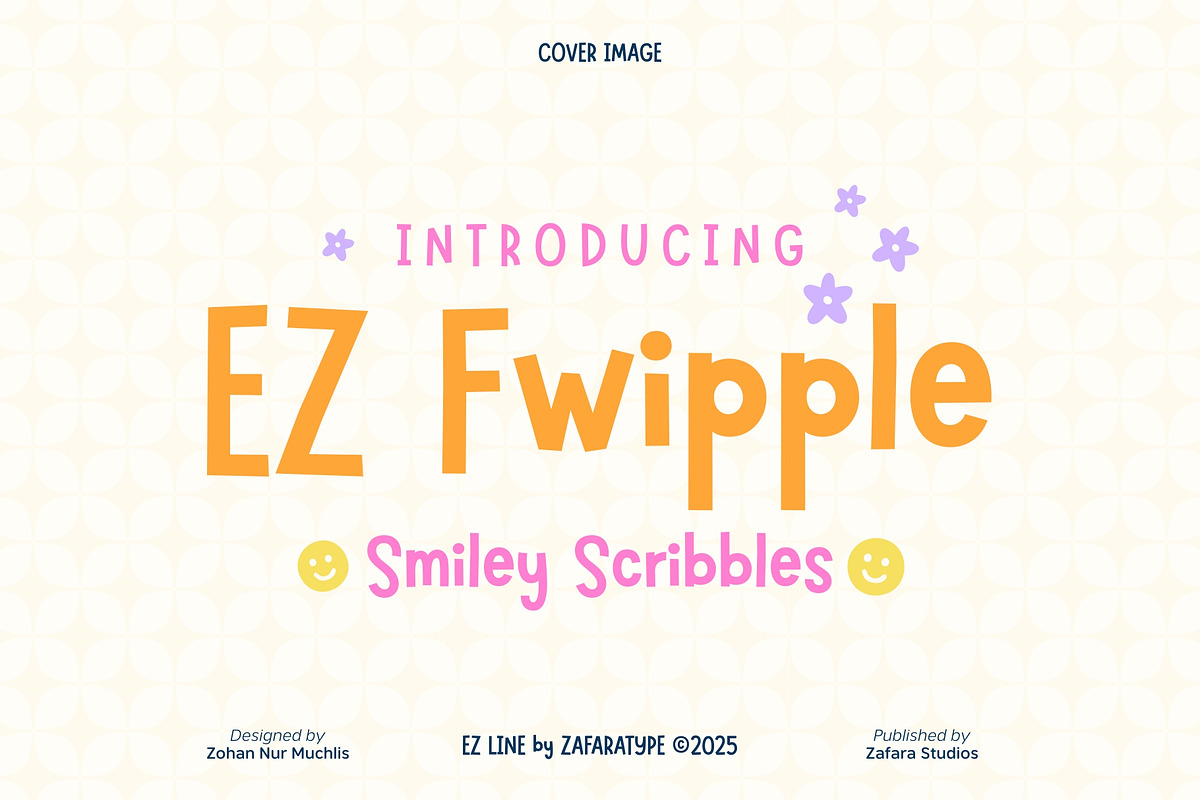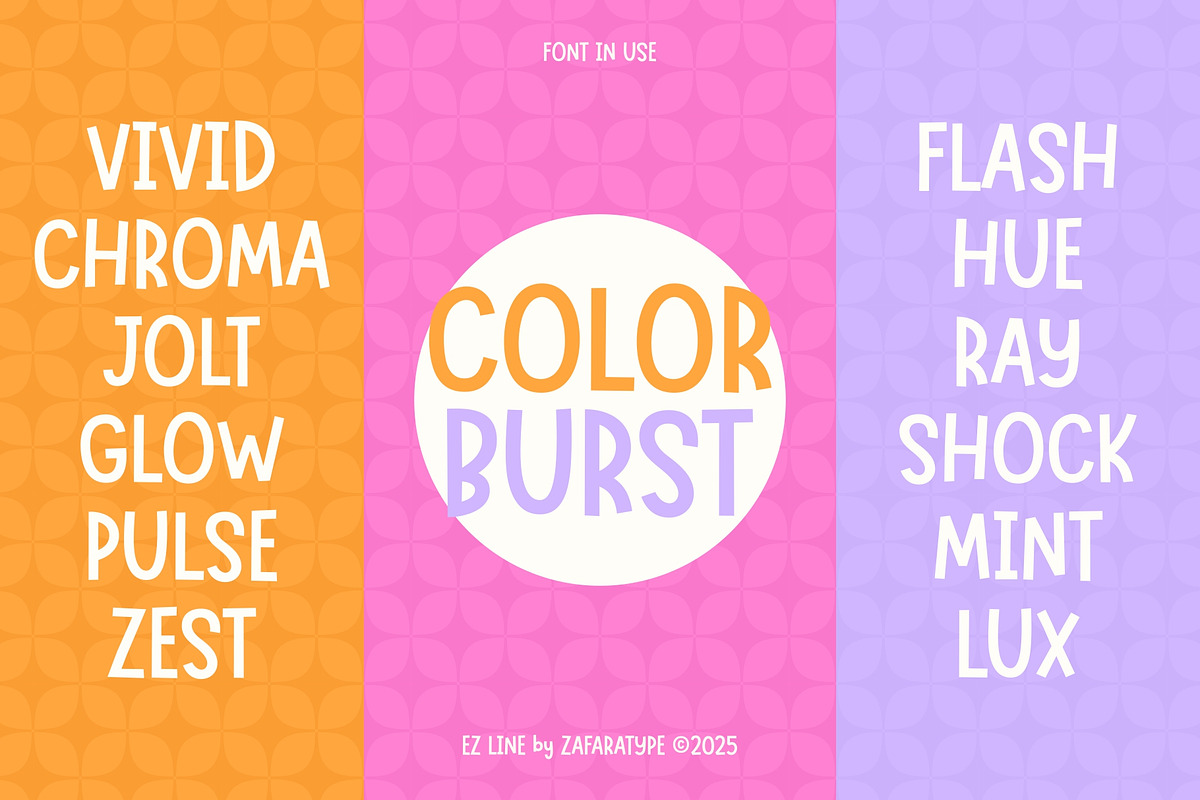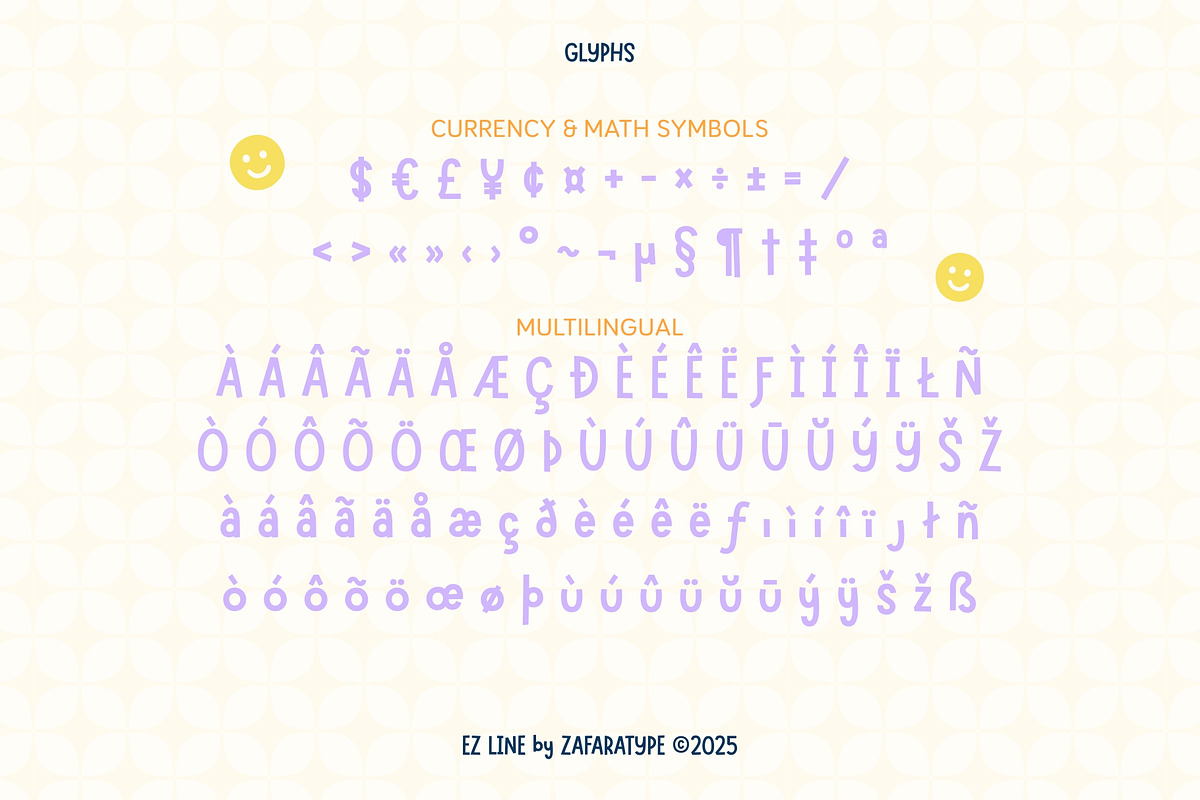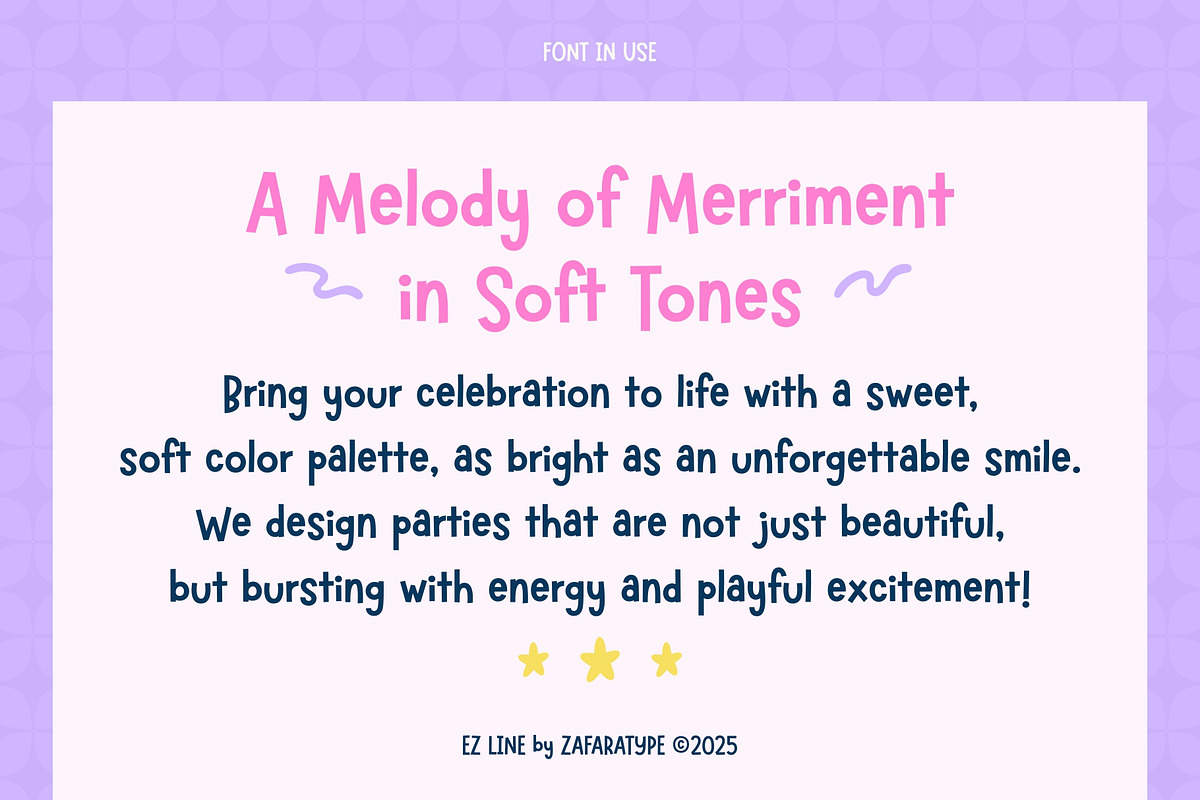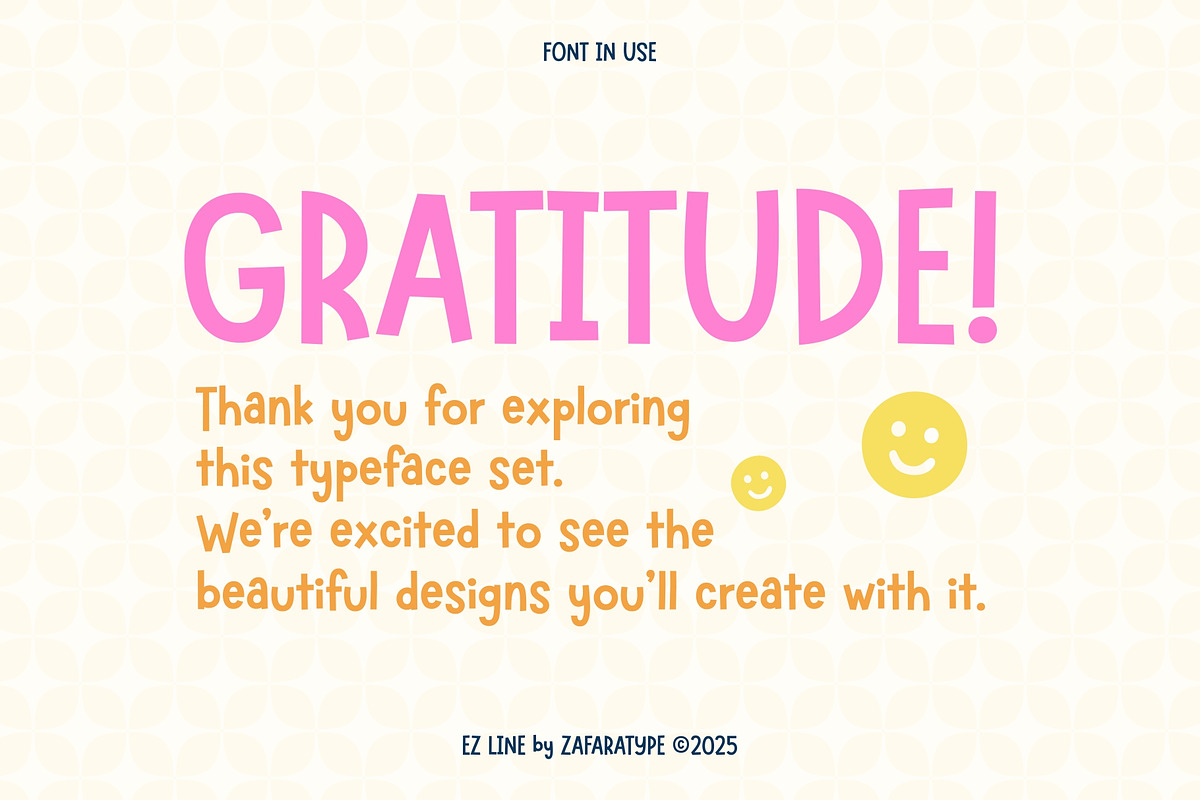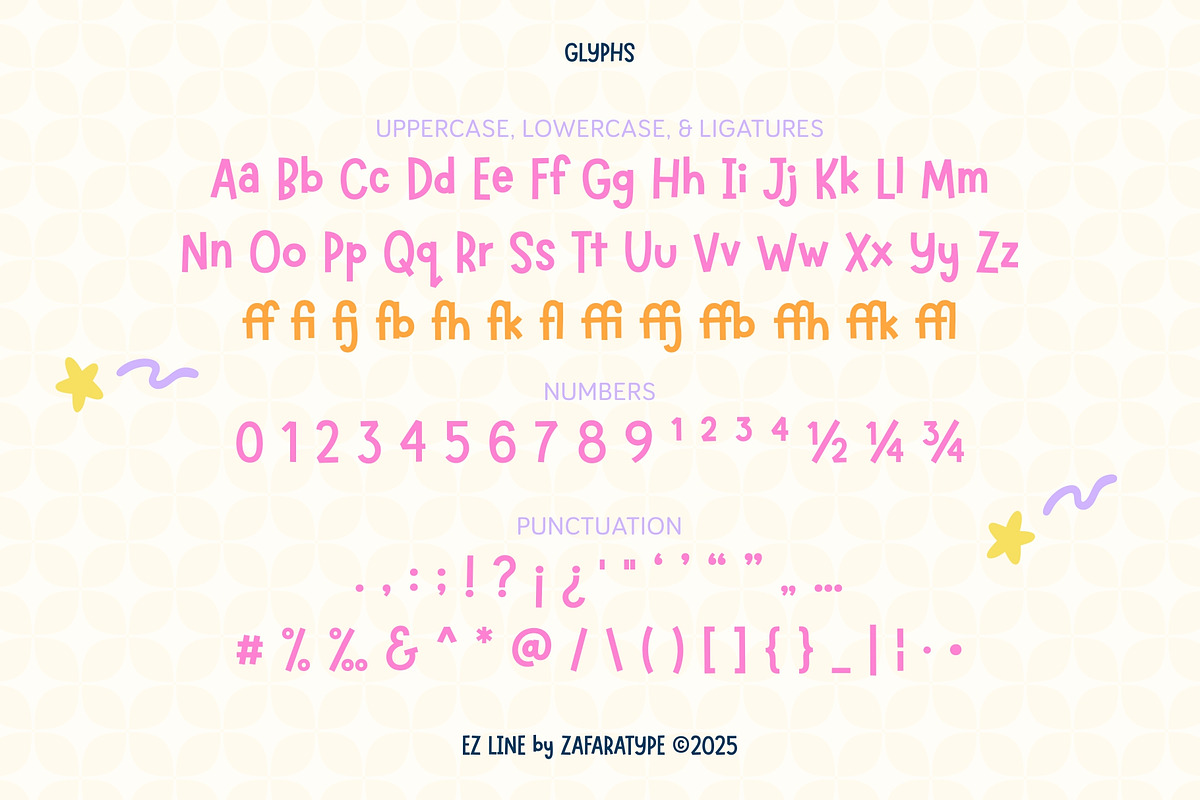
EZ Fwipple
EZ Fwipple is a cheerful and quirky display font filled with friendly shapes and playful personality. Each letter is drawn with bold, bouncy strokes that feel spontaneous but still tidy, giving your designs an expressive and joyful look.
Its doodle-like forms bring the charm of casual scribbles to life. The style feels energetic, happy, and imaginative, perfect for designs that need a bright and uplifting mood. Use it for children’s books, packaging, posters, logos, quotes, stickers, social media graphics, and any project that calls for a fun and delighted visual tone.
Wherever you want to add positivity, character, and a spark of childlike joy, EZ Fwipple fits beautifully.
- 256 glyphs: Uppercase and lowercase, Numbers and punctuation, Symbols and accents, Multilingual support
- 25 languages: Afrikaans, Albanian, Basque, Catalan, Danish, Dutch, English, Estonian, Faroese, Filipino, Finnish, French, Galician, German, Icelandic, Indonesian, Irish, Italian, Malay, Norwegian Bokmål, Portuguese, Spanish, Swahili, Swedish, Zulu